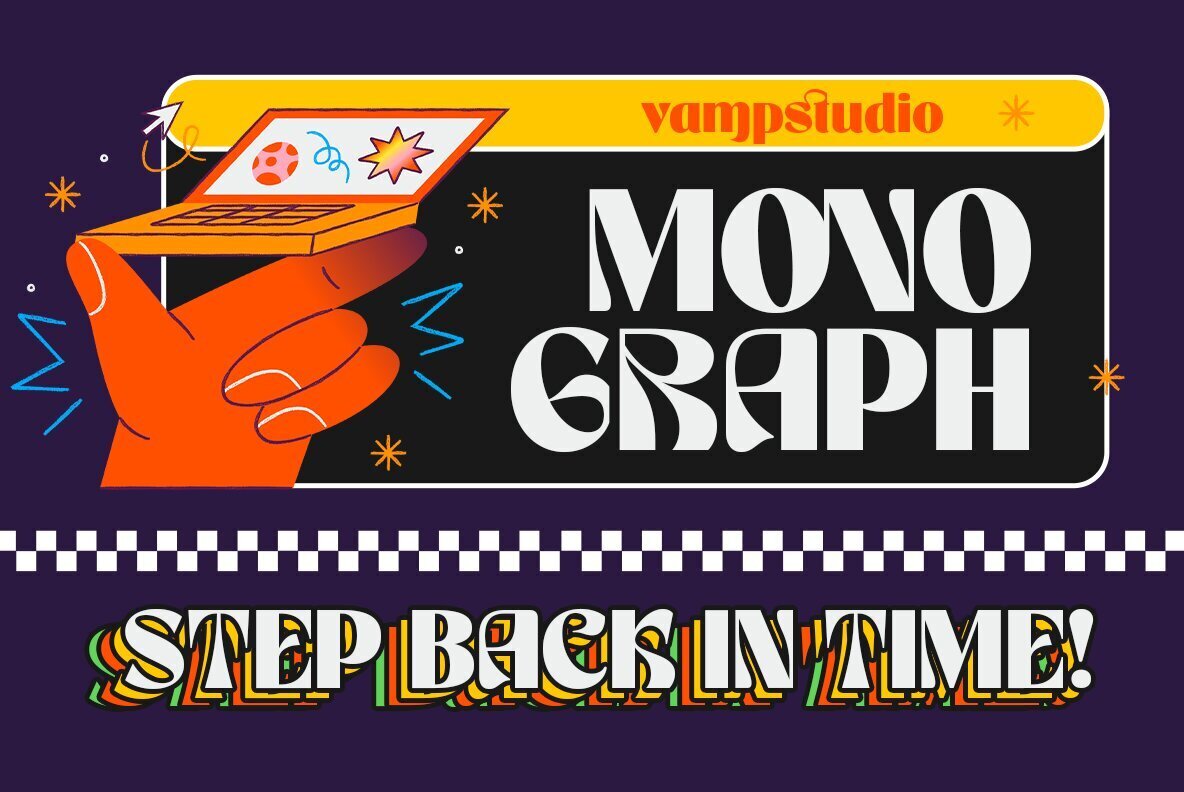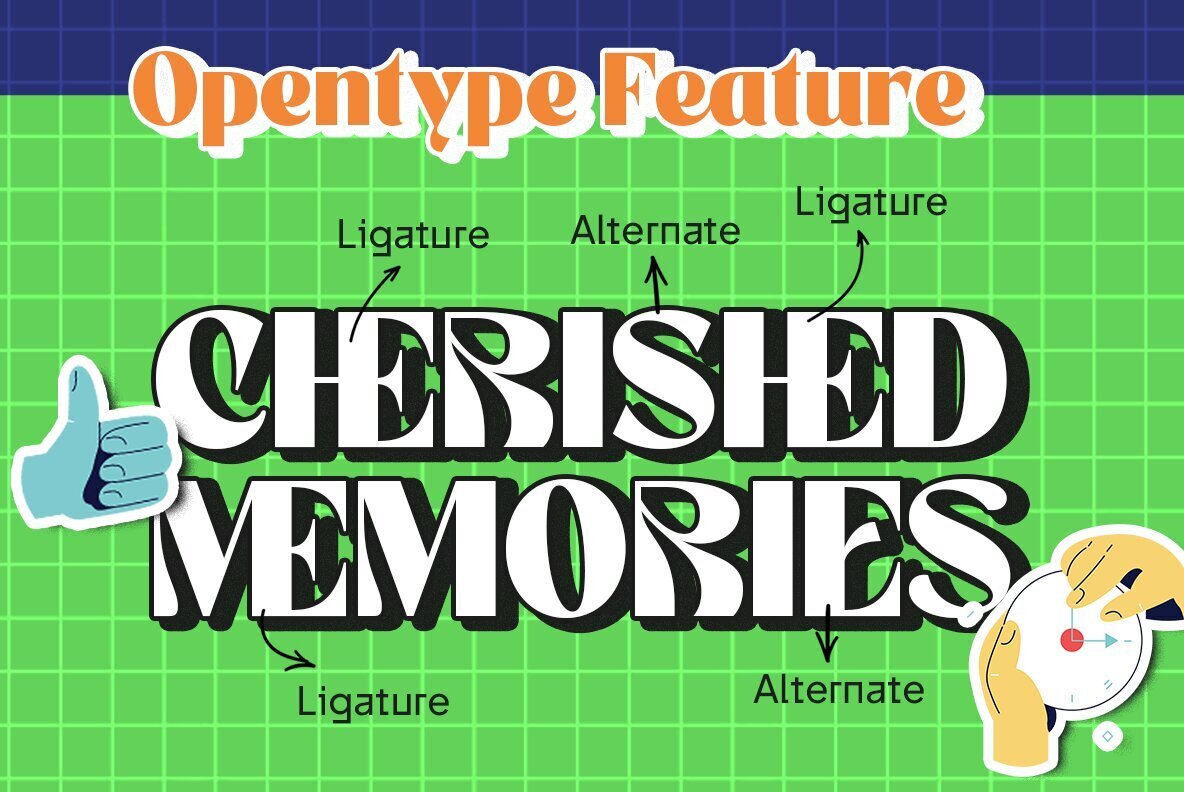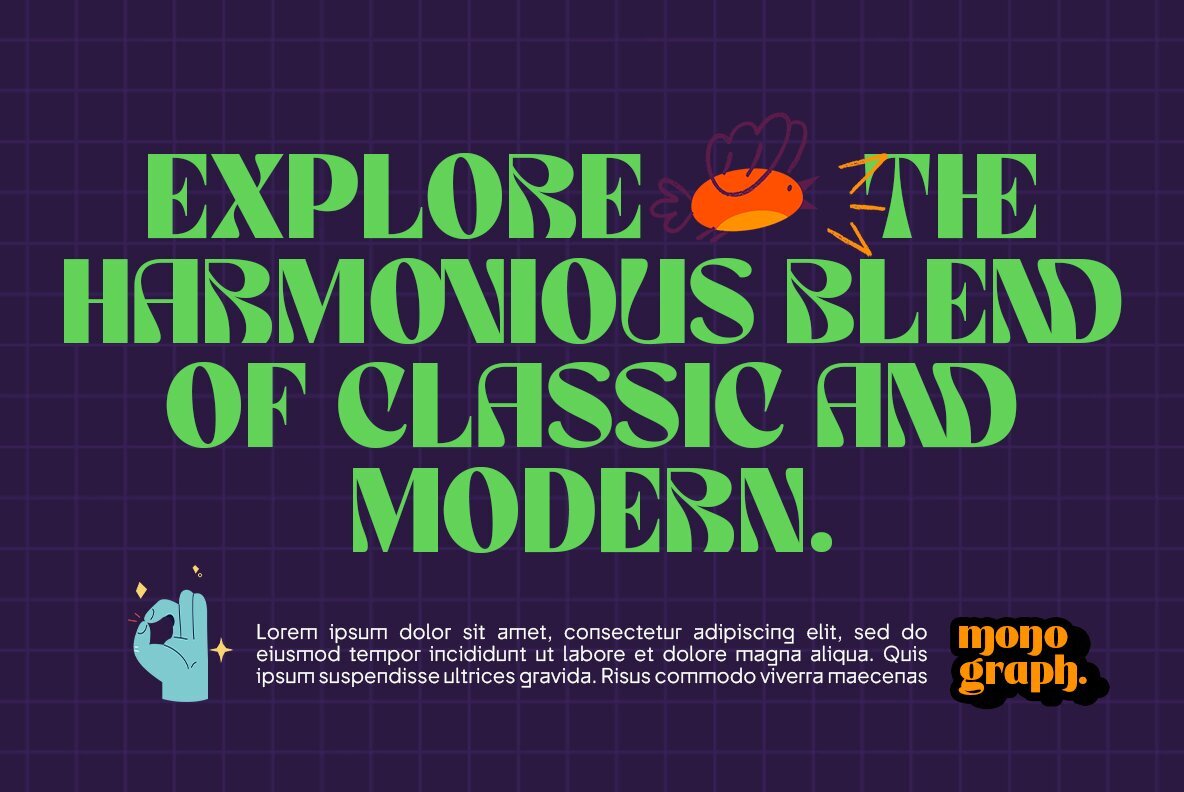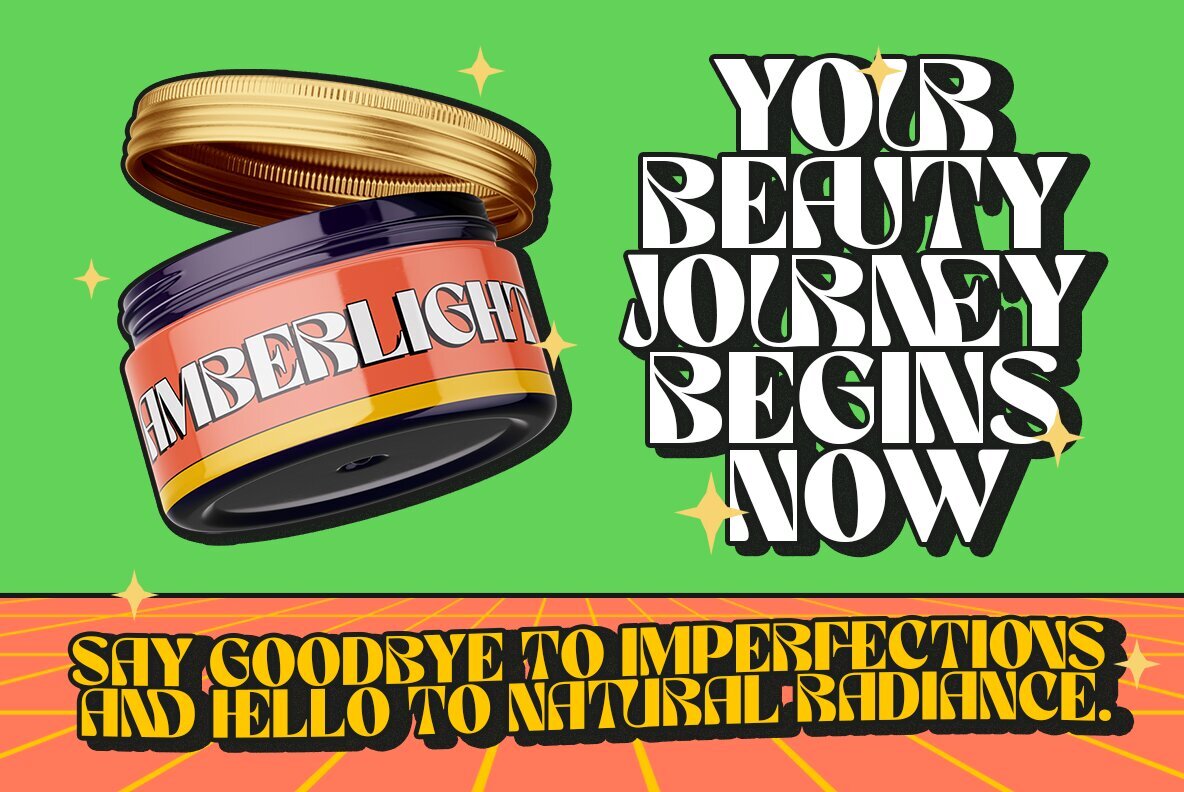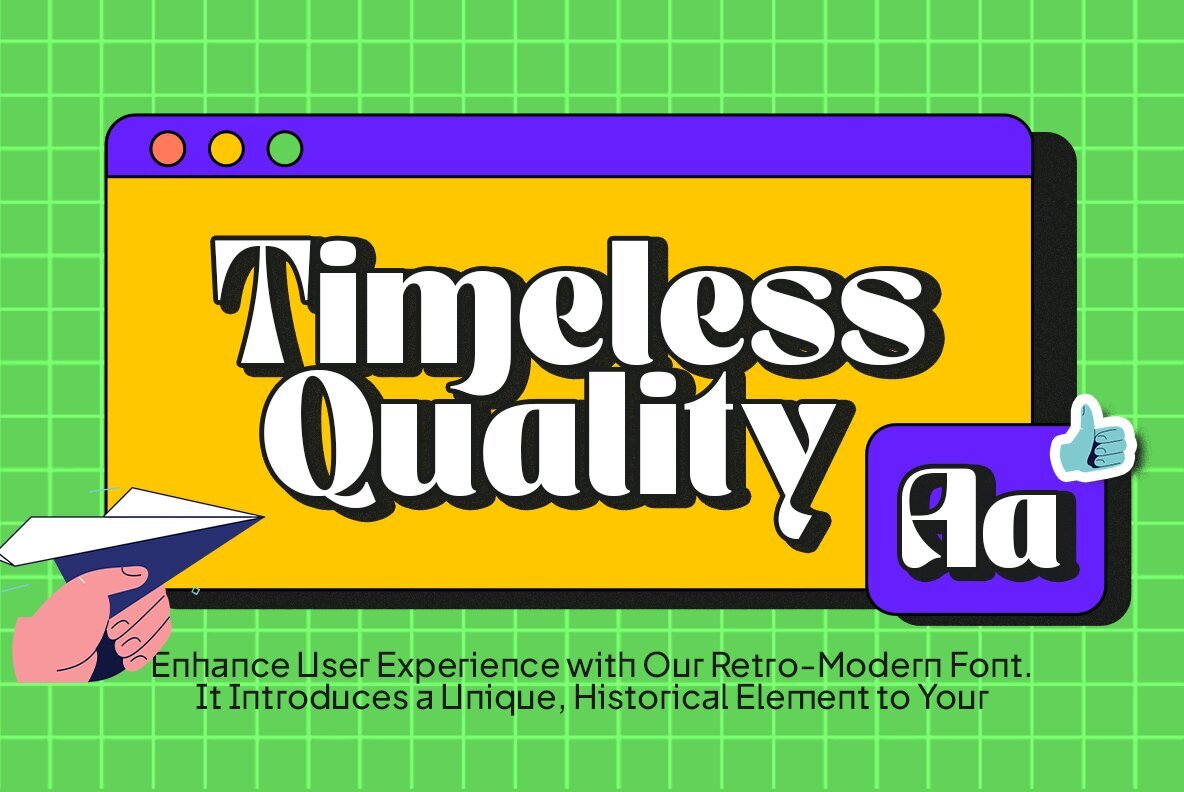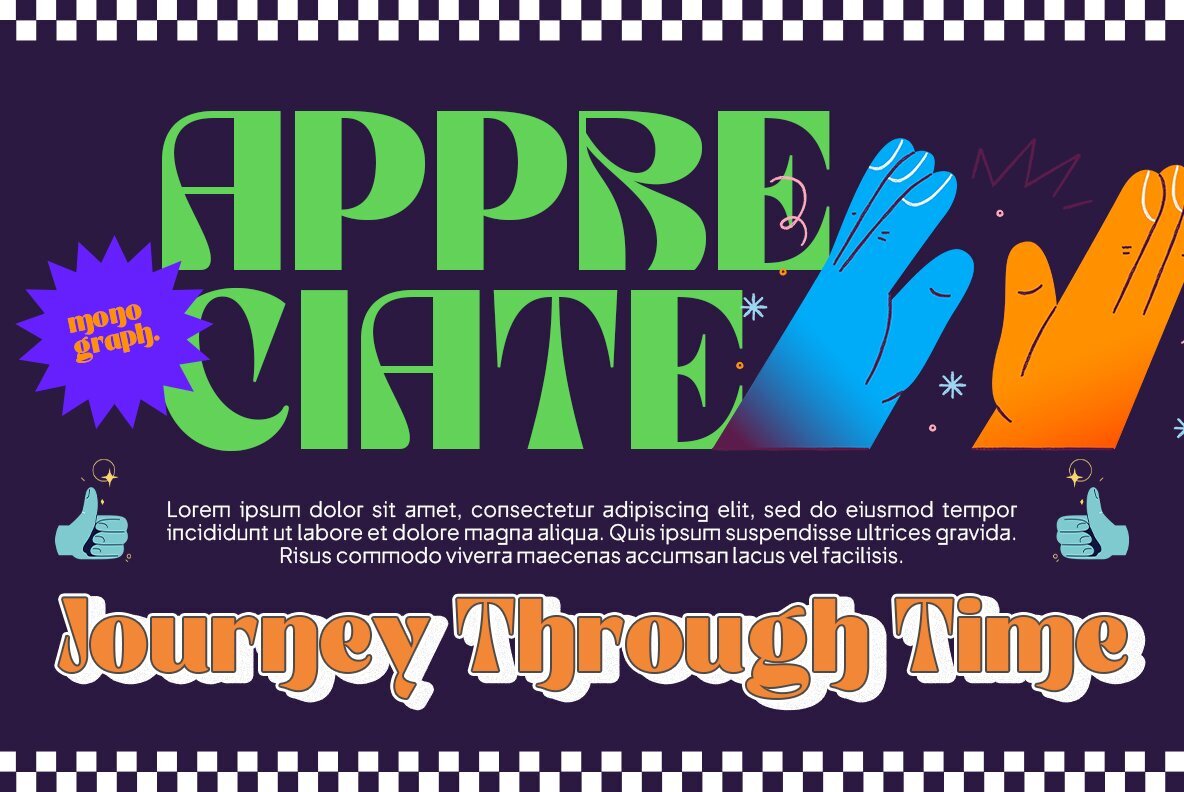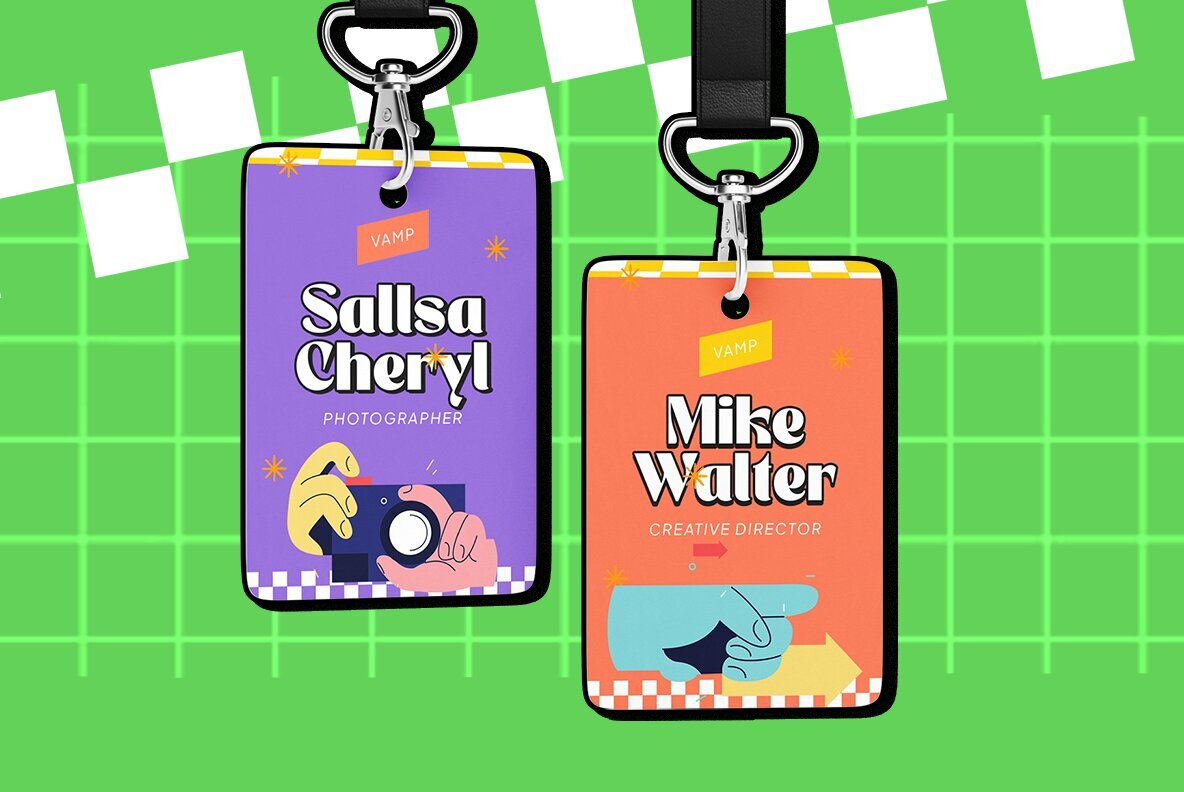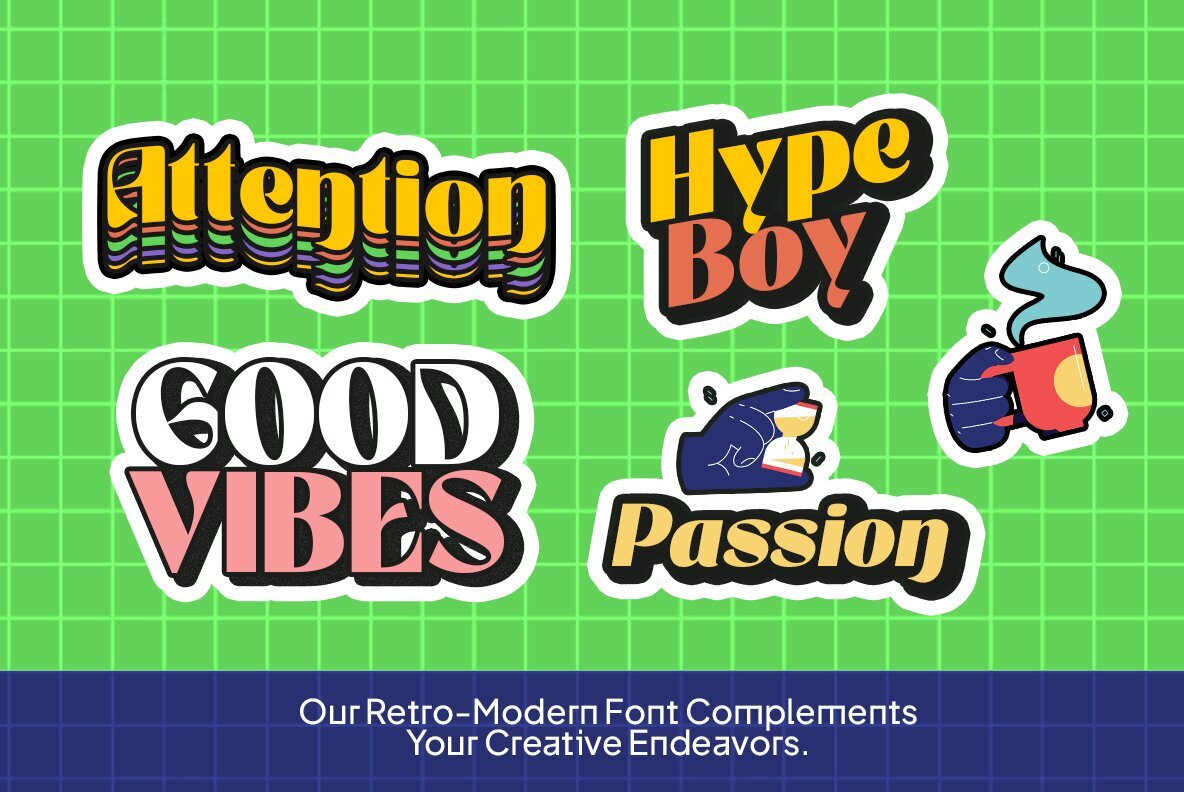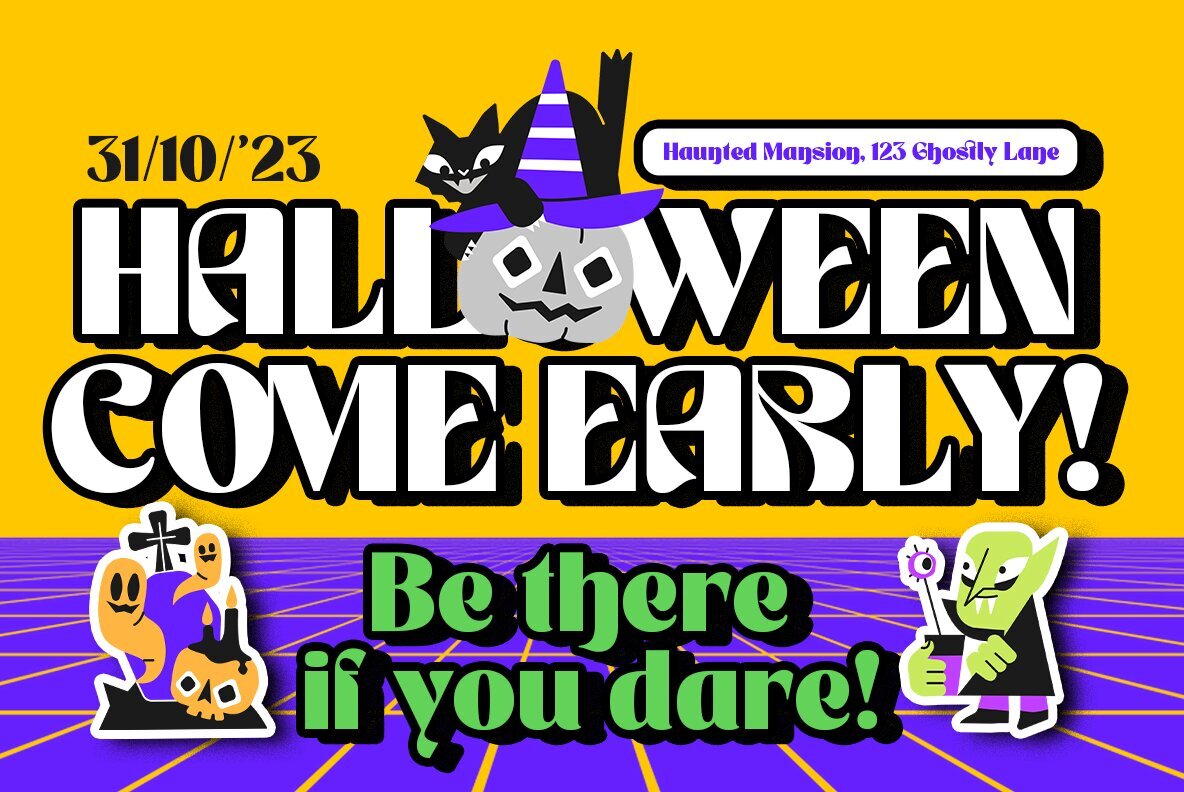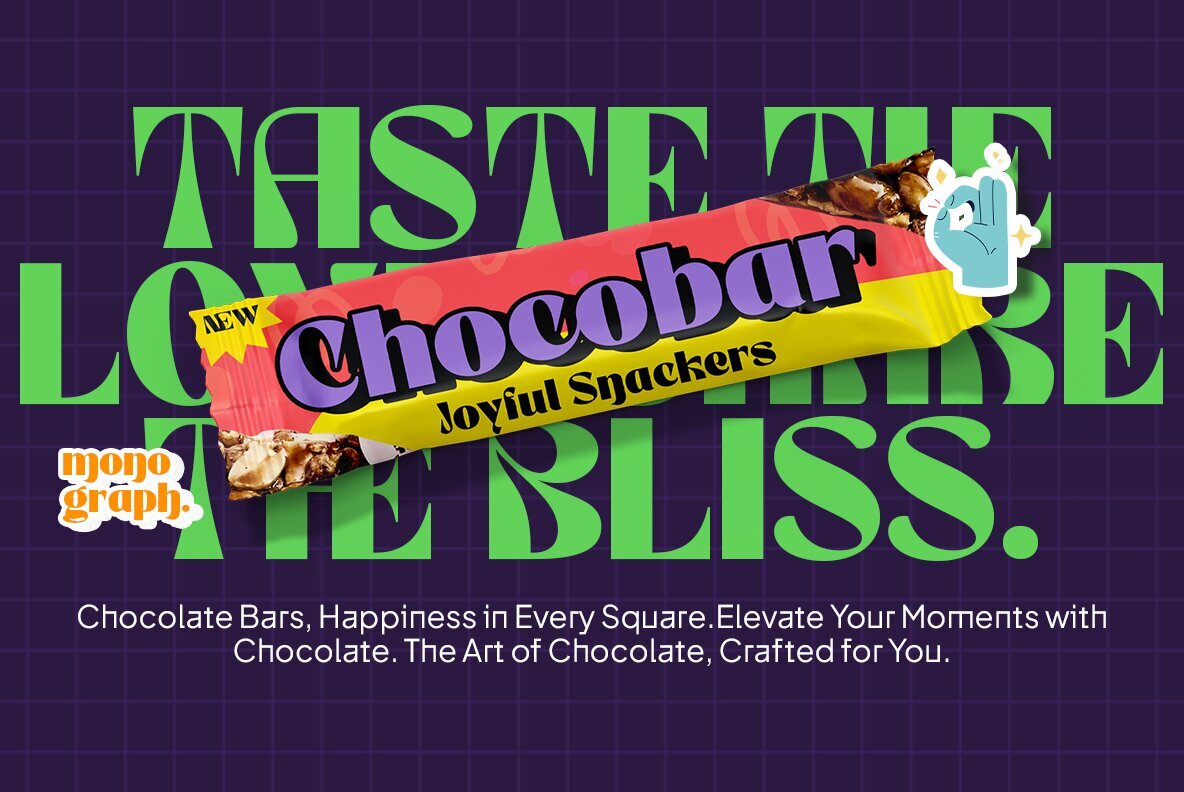
Monograph Font
Monograph Regular
Unveiling "Monograph" – Embrace the Nostalgia of the 90s with Our Retro-Inspired Display Font! Step into the vibrant world of the 90s with "Monograph," a display font that captures the essence of the era's bold and dynamic design. Let your creativity soar as you infuse your projects with the unmistakable spirit of retro nostalgia. Key Features: